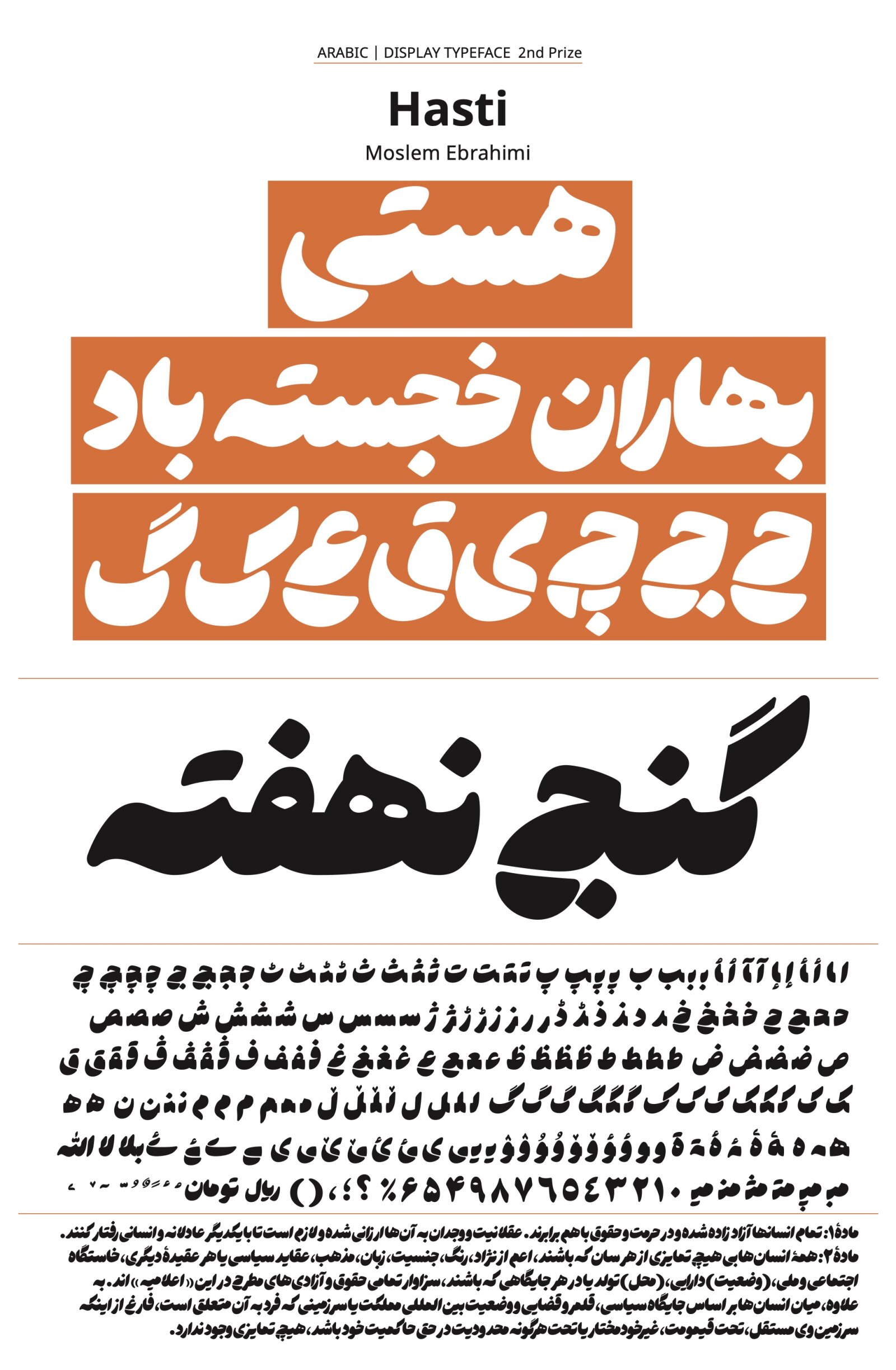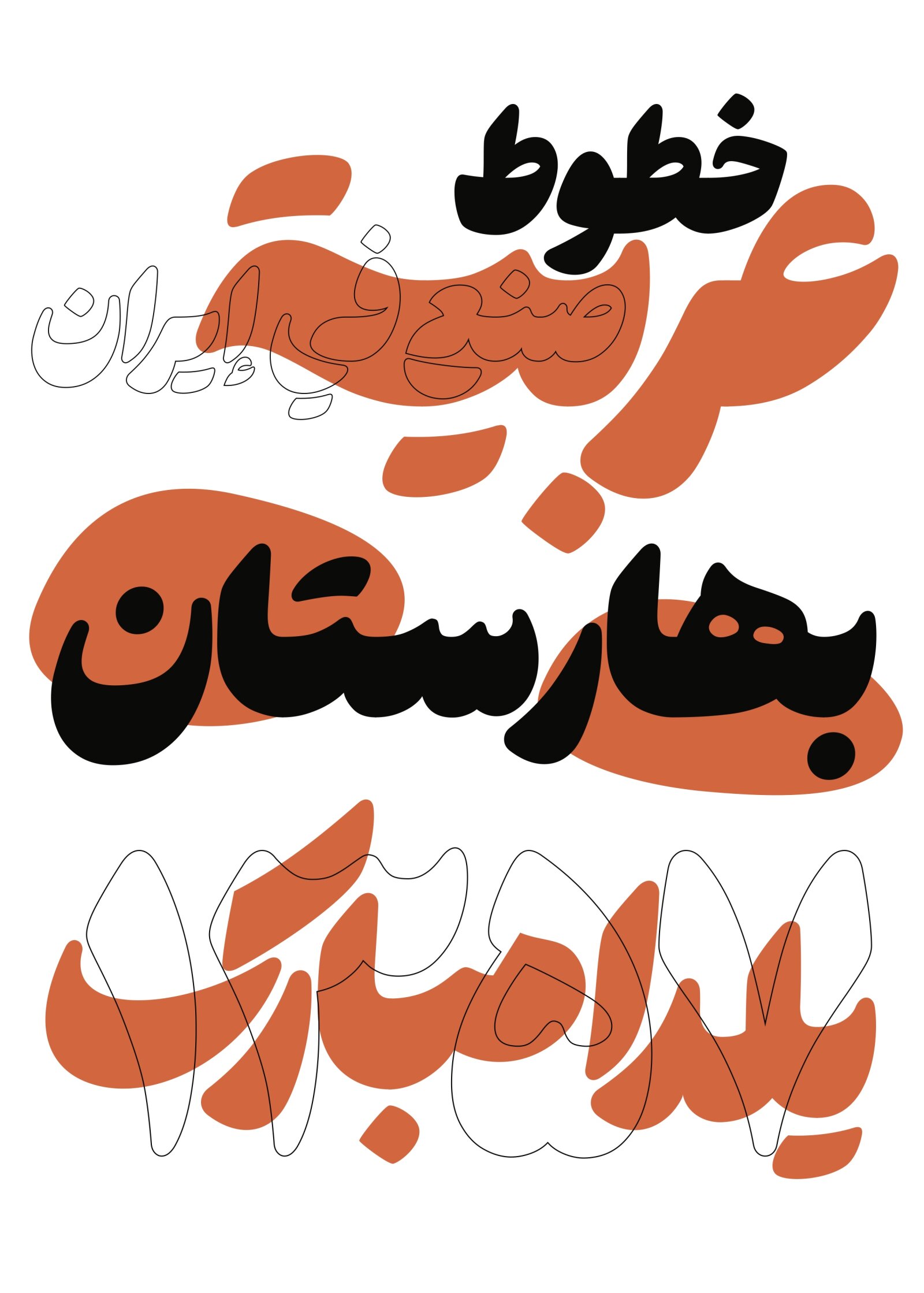
Hasti
by Moslem Ebrahimi
Arabic derived Scripts
Hasti is the result of mixing "Naskh" with "Nastaliq". "Naskh" is a practical version of Arabic script and "Nastaliq" is the top of the beauty of Persian script. Hasti, amid utility and beauty, has tried to place the fluid letters of "Nastaliq" on the baseline and make them calm like the "Naskh" script. In Iran, "Nastaliq" is still used for Writing advertisements on walls and placards. This "Nastaliq" is usually written bolder and more compactly, and it does not have the elegance of artistic "Nastaliq". Hasti is designed under the influence of this "Nastaliq" type, fat and compact. Hasti has been published in en.Fontiran.com